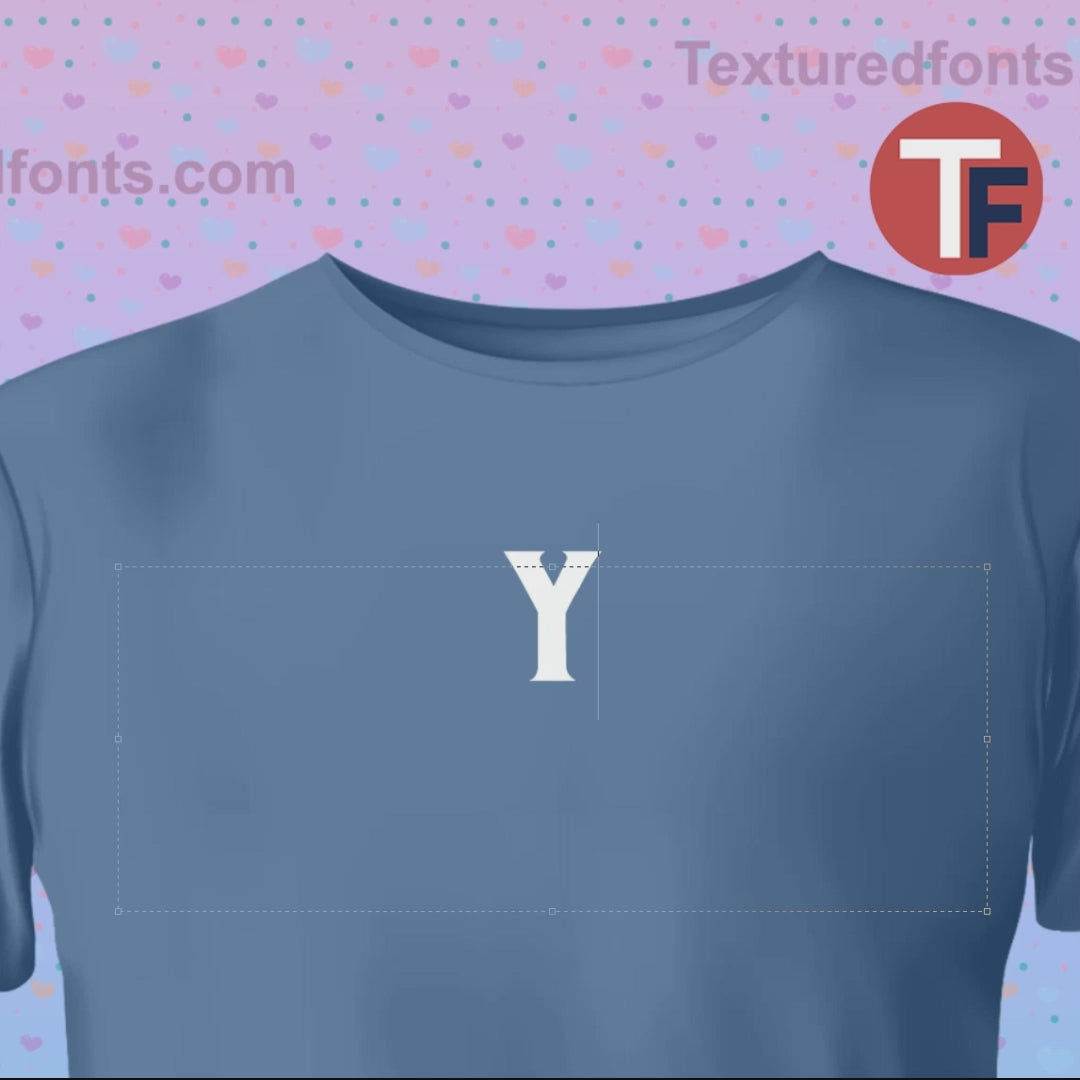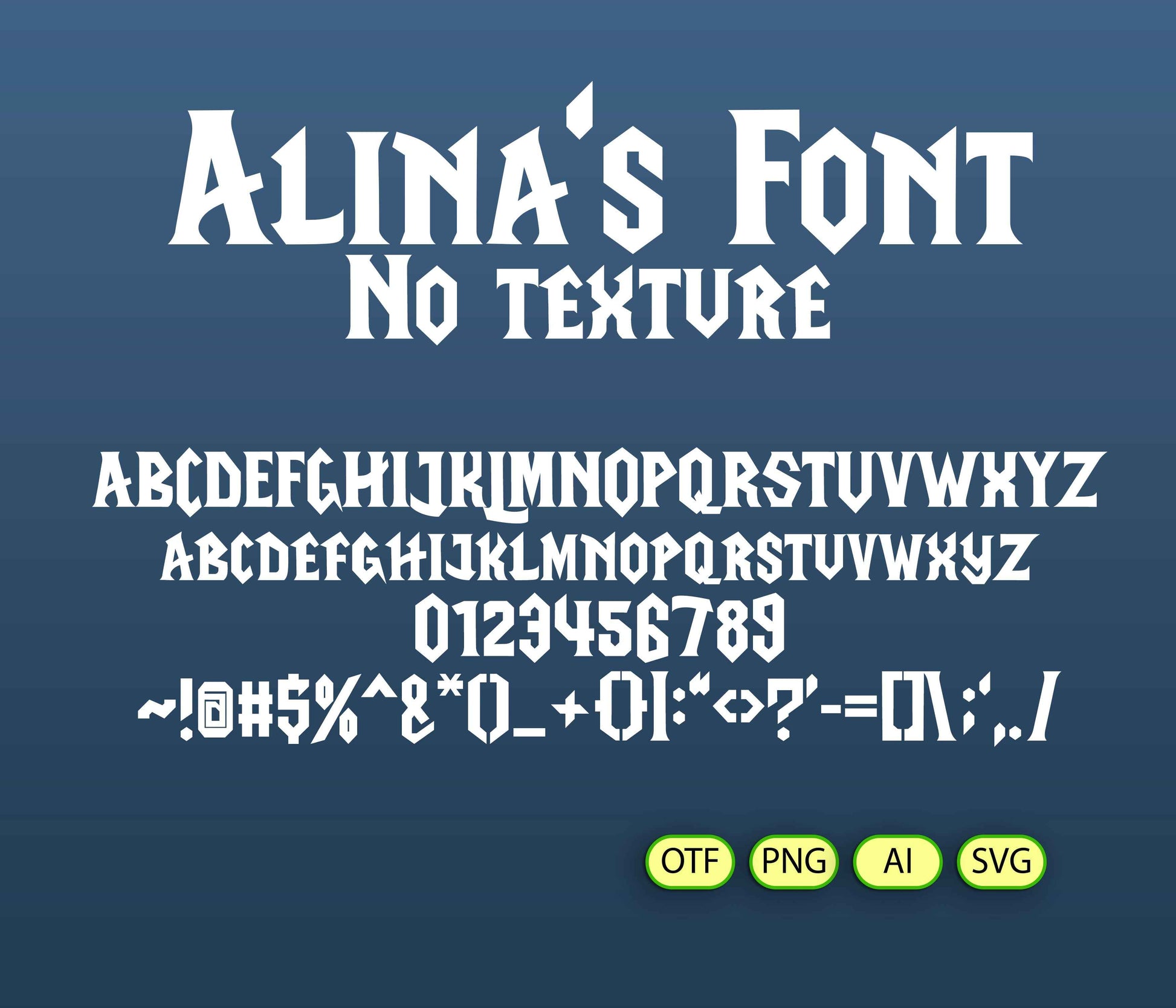
Heroic Realms Font
Explore Epic Fantasy with the Heroic Realms Font
Dive into the vast, mythical realms of a legendary fantasy universe with our Heroic Realms-inspired font. Designed to capture the grandeur and complexity of an iconic gaming franchise, this font is perfect for gamers, fantasy enthusiasts, and creative professionals.
This Heroic Realms font features ornate, Gothic-style characters with sharp edges and elaborate detailing, mimicking ancient scripts and runic texts. Its majestic forms are ideal for a variety of applications:
- Gaming Content: Enhance UI/UX design, game guides, or promotional materials.
- Event Promotion: Create compelling invites and signage for game launches or eSports tournaments.
- Digital Media: Use for captivating titles and headers on gaming blogs, websites, or social media platforms.
- Merchandising: Design unique apparel, posters, and collectibles that resonate with fans.
- Themed Decor: Craft intricate designs for themed parties, gaming rooms, or fantasy events.
Our Heroic Realms font not only pays tribute to the game's expansive lore but also empowers you to weave its mystical and heroic elements into your creative work. Whether you're designing promotional materials, customizing merchandise, or adding a magical touch to personal projects, this font allows you to convey messages with the epic intensity and immersive quality that the franchise is known for. Ready to bring the spirit of adventure and the thrill of battle to your designs? This font is your gateway to a world of imagination and epic storytelling.